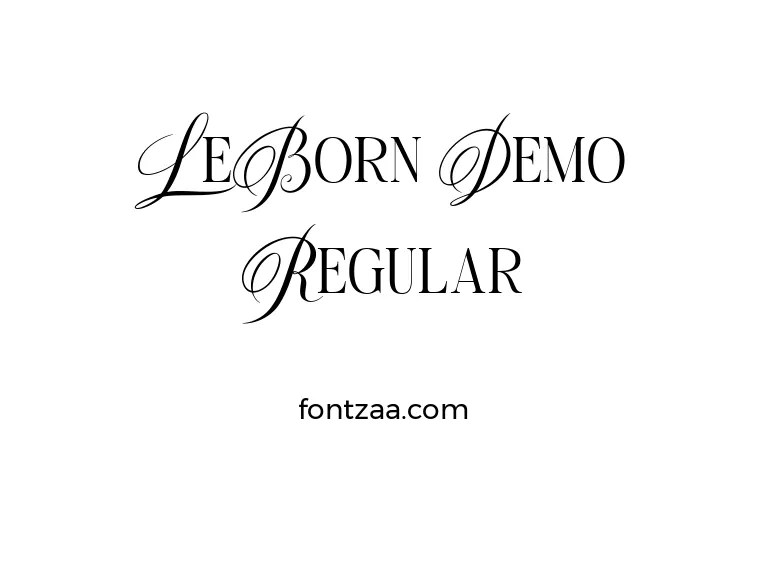
LeBorn Demo Regular Font is a elegant typeface created for designers who want typography with a distinctive visual identity. For projects that need typography with a stronger identity, LeBorn Demo Regular Font offers a elegant direction suited to creative display work. Different color combinations can make the same font feel subtle, energetic, premium or highly decorative. The font can work as the primary visual element in a minimal layout or as part of a more detailed composition. Its letter shapes become especially noticeable at larger sizes, where spacing and proportions can be explored more clearly. The font can be considered for projects such as invitations, wedding stationery, signatures, quotes and elegant branding. A clean serif or sans serif companion can handle smaller text while this font remains focused on headlines and key messages. Print and digital layouts may require different sizing and spacing, so testing the actual output dimensions is recommended. Source metadata currently associates the font with Suandana Ipandemade.. The listed license is Free for personal use, although users should still review the original font package before commercial use. A few quick layout variations can help determine where the font creates the strongest visual result.
Designers exploring a elegant typeface can use LeBorn Demo Regular Font to add a more recognizable visual voice to headlines, branding and promotional layouts. Testing several arrangements before choosing the final version can reveal which characteristics of the typeface work best. Different color combinations can make the same font feel subtle, energetic, premium or highly decorative. The font can work as the primary visual element in a minimal layout or as part of a more detailed composition. Creative uses may range from invitations, wedding stationery, signatures, quotes and elegant branding, with different results depending on scale and layout. Previewing the final layout on both large and small screens helps identify spacing and readability problems early. Print and digital layouts may require different sizing and spacing, so testing the actual output dimensions is recommended. Source metadata currently associates the font with Suandana Ipandemade.. License details are currently listed as Free for personal use. Users should verify the supplied documentation before using the font in products or paid projects. Testing the font with the actual project text can provide a much better impression than viewing isolated sample characters.
The visual character of LeBorn Demo Regular Font makes it an interesting choice for designers working on digital and print projects. Different color combinations can make the same font feel subtle, energetic, premium or highly decorative. Using generous space around the lettering can help the details of the typeface remain visible instead of competing with other elements. The typeface can change considerably depending on tracking, scale, alignment, background and surrounding imagery. Designers may explore it across invitations, wedding stationery, signatures, quotes and elegant branding, depending on the tone and requirements of the project. Previewing the final layout on both large and small screens helps identify spacing and readability problems early. Keeping secondary typography simple often allows the distinctive qualities of the main font to remain more visible. According to the available font information, the typeface is associated with Suandana Ipandemade.. The available licensing label is Free for personal use, but redistribution and commercial permissions should always be confirmed from the original source. A few quick layout variations can help determine where the font creates the strongest visual result.
LeBorn Demo Regular Font Family
Within the LeBorn Demo Regular Font Family, even a single available style can produce many different visual treatments through scale, tracking and layout choices. LeBorn Demo Regular Font stands out through its individual shapes and can become an important visual element in font-family exploration. Different color combinations can make the same font feel subtle, energetic, premium or highly decorative. Using generous space around the lettering can help the details of the typeface remain visible instead of competing with other elements. The font can work as the primary visual element in a minimal layout or as part of a more detailed composition. Designers may explore it across invitations, wedding stationery, signatures, quotes and elegant branding, depending on the tone and requirements of the project. Previewing the final layout on both large and small screens helps identify spacing and readability problems early. A clean serif or sans serif companion can handle smaller text while this font remains focused on headlines and key messages. The available source information lists Suandana Ipandemade. as the designer or publisher. License details are currently listed as Free for personal use. Users should verify the supplied documentation before using the font in products or paid projects. A few quick layout variations can help determine where the font creates the strongest visual result.
LeBorn Demo Regular Font in Digital and Poster Design
With its distinctive letterforms, LeBorn Demo Regular Font can introduce a elegant character into posters, campaigns, thumbnails and promotional content. Its letter shapes become especially noticeable at larger sizes, where spacing and proportions can be explored more clearly. Testing several arrangements before choosing the final version can reveal which characteristics of the typeface work best. The font can work as the primary visual element in a minimal layout or as part of a more detailed composition. Its display-focused appearance makes it worth testing in invitations, wedding stationery, signatures, quotes and elegant branding. Previewing the final layout on both large and small screens helps identify spacing and readability problems early. Designers should evaluate the typeface inside the real project because a standalone preview cannot show every possible visual combination. According to the available font information, the typeface is associated with Suandana Ipandemade.. Current license information is shown as Free for personal use; checking the original documentation is recommended before client or commercial work. Its final appearance will depend heavily on the surrounding colors, imagery, spacing and supporting typography.
LeBorn Demo Regular Font stands out through its individual shapes and can become an important visual element in discovering alternatives and related typography. Testing several arrangements before choosing the final version can reveal which characteristics of the typeface work best. Its letter shapes become especially noticeable at larger sizes, where spacing and proportions can be explored more clearly. The typeface can change considerably depending on tracking, scale, alignment, background and surrounding imagery. Designers may explore it across invitations, wedding stationery, signatures, quotes and elegant branding, depending on the tone and requirements of the project. Previewing the final layout on both large and small screens helps identify spacing and readability problems early. For layouts containing longer information, pairing it with a simpler supporting typeface can improve readability and hierarchy. The designer or publisher information available for this typeface is Suandana Ipandemade.. The available licensing label is Free for personal use, but redistribution and commercial permissions should always be confirmed from the original source. A few quick layout variations can help determine where the font creates the strongest visual result. Explore more typography on Fontzaa or browse the 100% Free Fonts collection.
Projects That Suit LeBorn Demo Regular Font
For projects that need typography with a stronger identity, LeBorn Demo Regular Font offers a elegant direction suited to different creative applications for the font. Its letter shapes become especially noticeable at larger sizes, where spacing and proportions can be explored more clearly. Different color combinations can make the same font feel subtle, energetic, premium or highly decorative. The font can work as the primary visual element in a minimal layout or as part of a more detailed composition. Creative uses may range from invitations, wedding stationery, signatures, quotes and elegant branding, with different results depending on scale and layout. A clean serif or sans serif companion can handle smaller text while this font remains focused on headlines and key messages. Designers should evaluate the typeface inside the real project because a standalone preview cannot show every possible visual combination. According to the available font information, the typeface is associated with Suandana Ipandemade.. The available licensing label is Free for personal use, but redistribution and commercial permissions should always be confirmed from the original source. Experimenting directly in the intended design is usually the best way to judge whether the typeface suits the project.
LeBorn Demo Regular Font for Logo and Branding Design
LeBorn Demo Regular Font stands out through its individual shapes and can become an important visual element in logos, wordmarks and visual identity systems. The font can work as the primary visual element in a minimal layout or as part of a more detailed composition. Testing several arrangements before choosing the final version can reveal which characteristics of the typeface work best. Different color combinations can make the same font feel subtle, energetic, premium or highly decorative. Its display-focused appearance makes it worth testing in invitations, wedding stationery, signatures, quotes and elegant branding. For layouts containing longer information, pairing it with a simpler supporting typeface can improve readability and hierarchy. Keeping secondary typography simple often allows the distinctive qualities of the main font to remain more visible. Source metadata currently associates the font with Suandana Ipandemade.. The listed license is Free for personal use, although users should still review the original font package before commercial use. A few quick layout variations can help determine where the font creates the strongest visual result.
Creative Uses for LeBorn Demo Regular Font
Designers exploring a elegant typeface can use LeBorn Demo Regular Font to add a more recognizable visual voice to practical ways designers can use the typeface. Different color combinations can make the same font feel subtle, energetic, premium or highly decorative. The typeface can change considerably depending on tracking, scale, alignment, background and surrounding imagery. Its letter shapes become especially noticeable at larger sizes, where spacing and proportions can be explored more clearly. Designers may explore it across invitations, wedding stationery, signatures, quotes and elegant branding, depending on the tone and requirements of the project. Keeping secondary typography simple often allows the distinctive qualities of the main font to remain more visible. A clean serif or sans serif companion can handle smaller text while this font remains focused on headlines and key messages. The available source information lists Suandana Ipandemade. as the designer or publisher. The available licensing label is Free for personal use, but redistribution and commercial permissions should always be confirmed from the original source. Experimenting directly in the intended design is usually the best way to judge whether the typeface suits the project.
Design Tips for LeBorn Demo Regular Font
Designers exploring a elegant typeface can use LeBorn Demo Regular Font to add a more recognizable visual voice to spacing, contrast, scale and layout decisions. Using generous space around the lettering can help the details of the typeface remain visible instead of competing with other elements. Different color combinations can make the same font feel subtle, energetic, premium or highly decorative. The font can work as the primary visual element in a minimal layout or as part of a more detailed composition. Creative uses may range from invitations, wedding stationery, signatures, quotes and elegant branding, with different results depending on scale and layout. Designers should evaluate the typeface inside the real project because a standalone preview cannot show every possible visual combination. A clean serif or sans serif companion can handle smaller text while this font remains focused on headlines and key messages. The available source information lists Suandana Ipandemade. as the designer or publisher. Current license information is shown as Free for personal use; checking the original documentation is recommended before client or commercial work. Testing the font with the actual project text can provide a much better impression than viewing isolated sample characters.